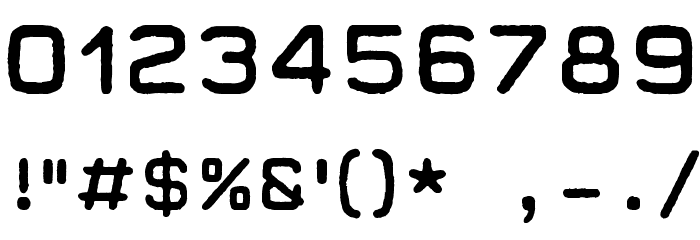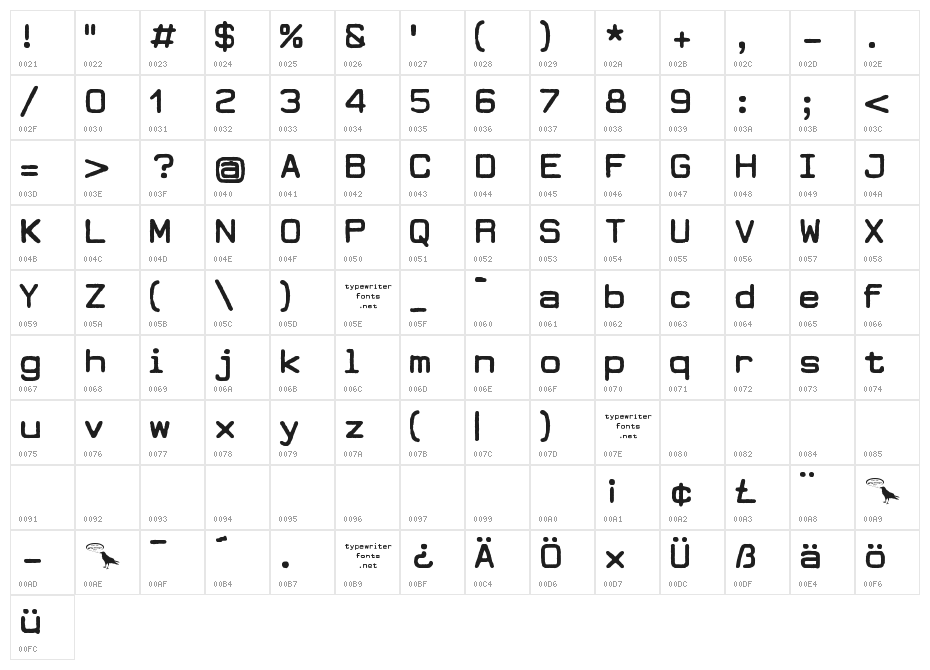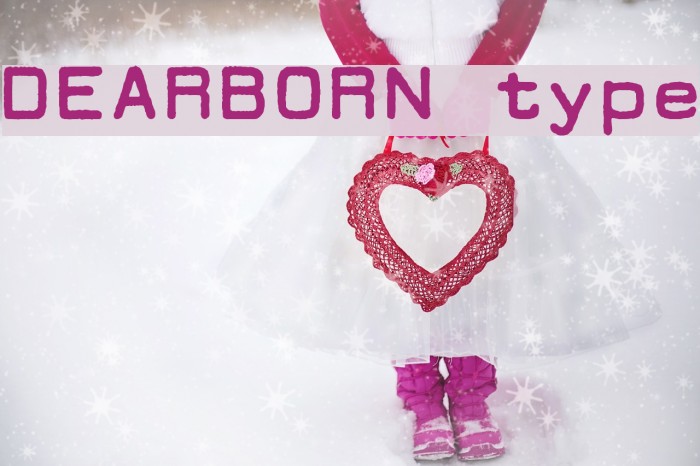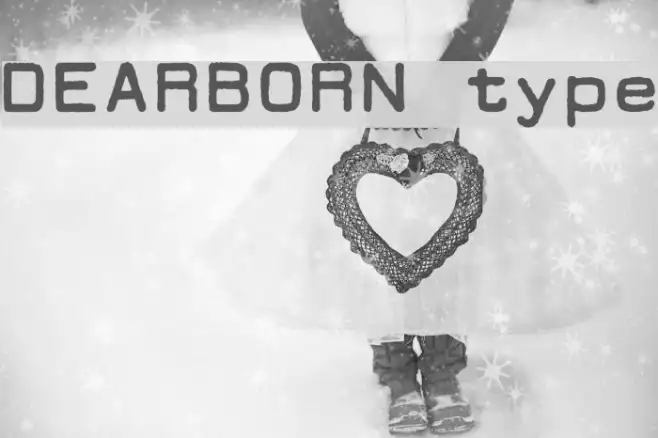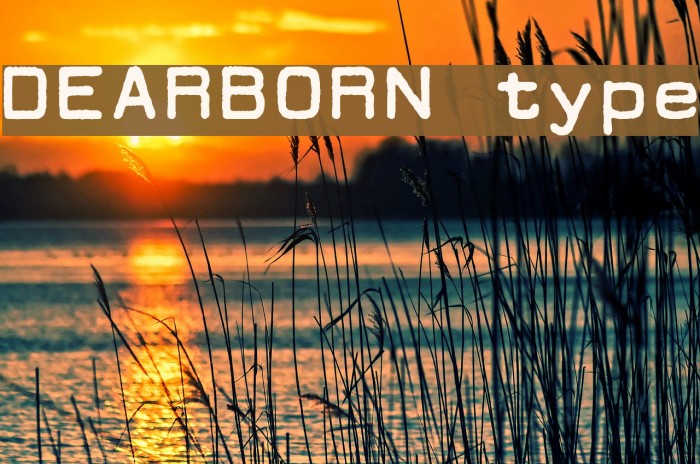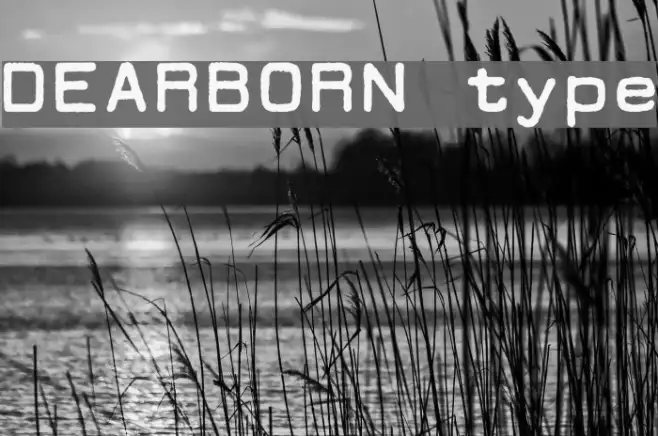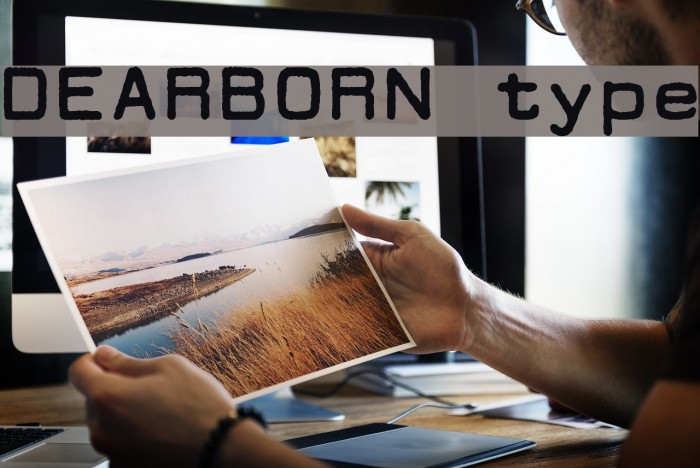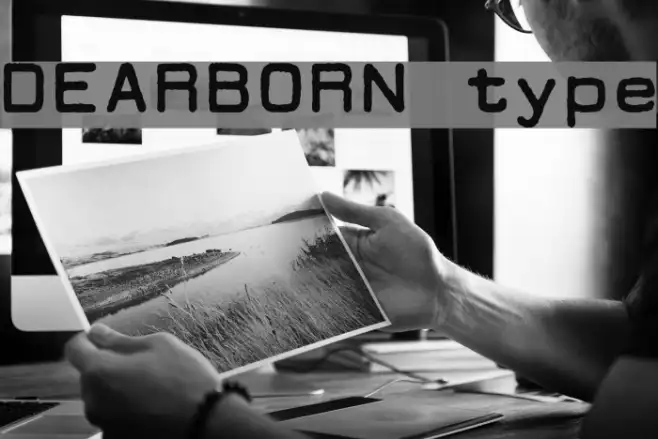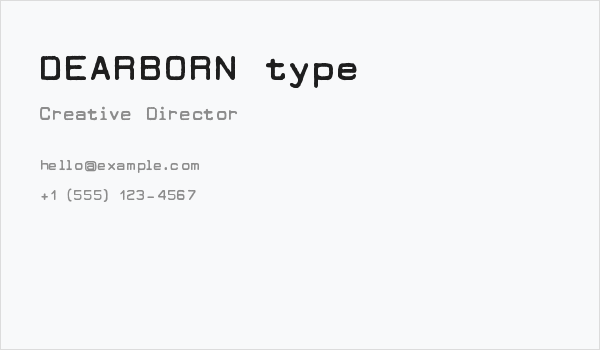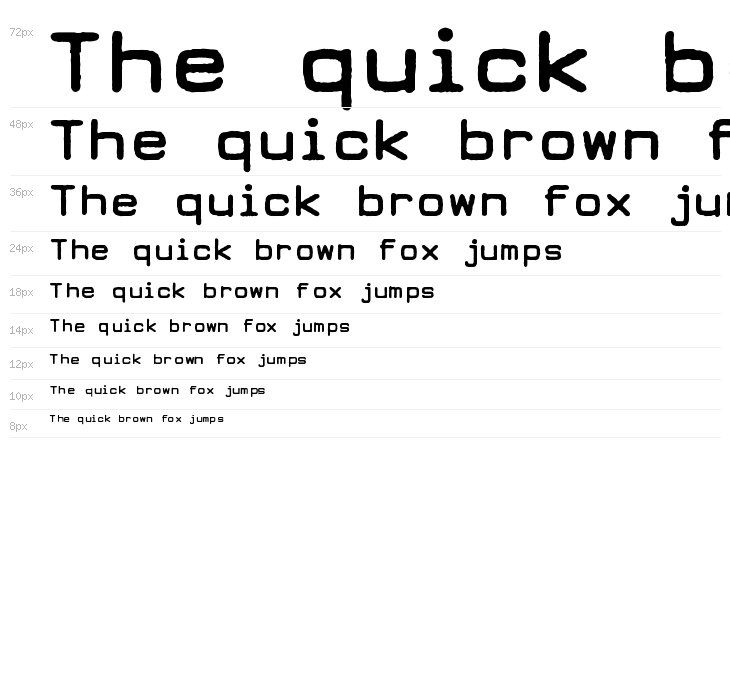
DEARBORN type Font
DEARBORN type Description
This font features a bold, rounded style with a slightly distressed texture, giving it a vintage and industrial feel. The characters are uniformly spaced, providing a clean and organized appearance. The uppercase and lowercase letters maintain a consistent height, while the numerals and special characters complement the overall design. The font's unique texture adds character, making it suitable for projects that require a touch of retro or handcrafted aesthetics.
| Proposed Projects | Ideal for branding, packaging, posters, and signage that require a vintage or industrial look. |